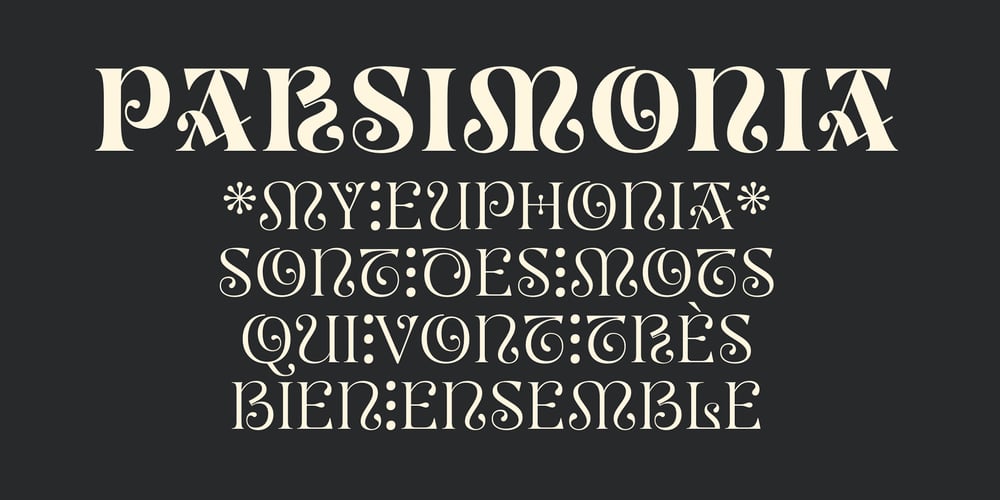
Parsimonia
Parsimonia font
Parsimonia Font Family was designed by Rubén Prol and published by Rubén Prol. Parsimonia contains 1 styles and family package options. Initially designed during the confinement period due to the COVID-19 health crisis, Parsimonia is inspired by Romanesque letterforms to achieve an aesthetic and decorative purpose, where readability and conventional letter shapes have been sidelined to give more importance to the final design form. Parsimonia is a unicase, versatile and variable font that spans from light to bold weights.